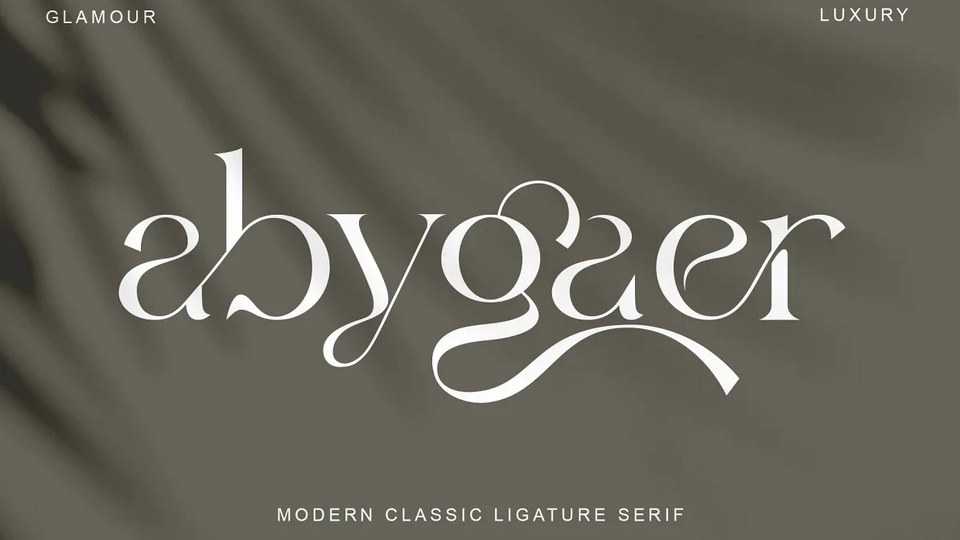
Download Abygaer font, a wavy, chic and luxurious serif typeface with letters that seem to dance and twist harmoniously together. Abygaer is defined by smooth curves and is perfect for fashion branding or editorial designs.
Designer: Sealoung